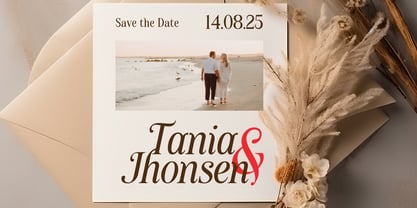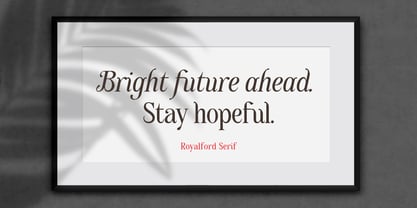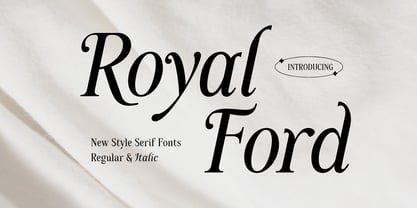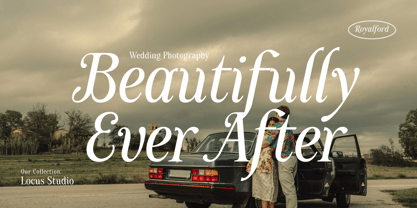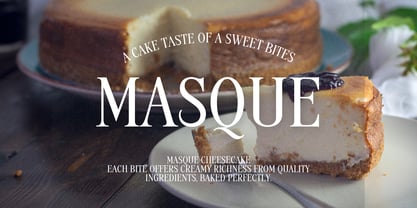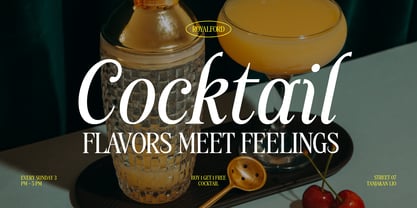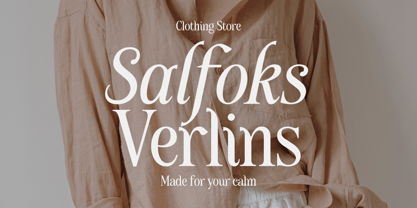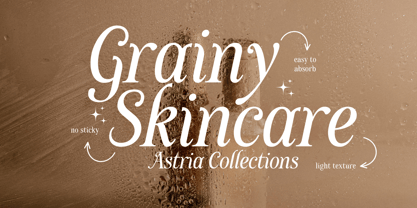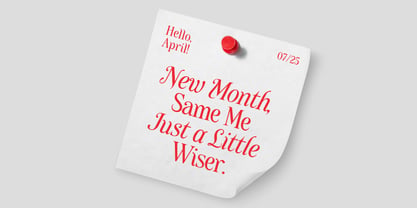
Royalford
by Sronstudio
The Royalford Font Family was designed by Muhamad Yusron Billah and published by Sronstudio. Royalford contains 2 styles and family package options. More about this family
Royalford is a refined and elegant serif font that exudes timeless sophistication and classic charm. With its balanced proportions, sharp serifs, and graceful curves, Royalford is perfect for editorial designs, branding, invitations, packaging, and high-end logo projects. This typeface brings a sense of royalty and professionalism to any design it touches, making it a versatile choice for both modern and traditional aesthetics.
- Regular & Italic Style
- Uppercase & lowercase characters
- Numerals & punctuation
- Multilingual support
Designers: Muhamad Yusron Billah
Foundry: Sronstudio